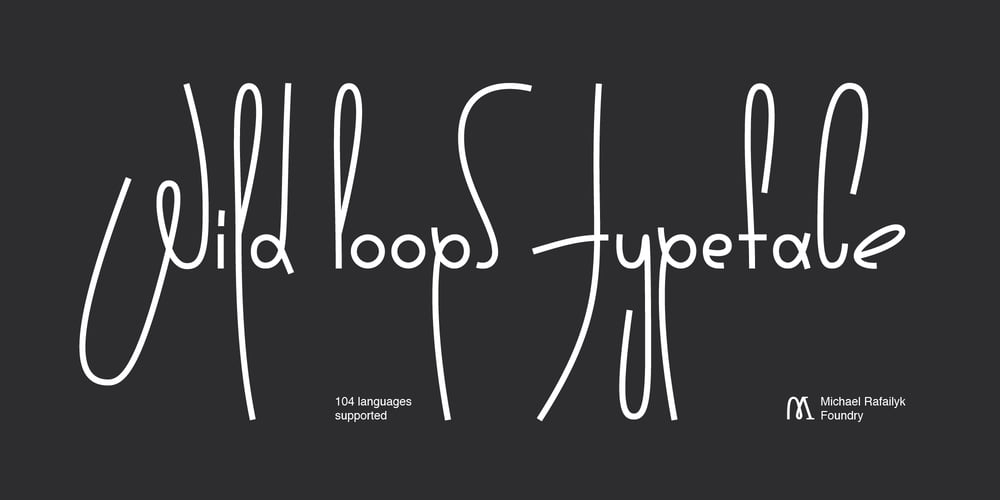
Wild Loops Font Family was designed by Michael Rafailyk and published by Michael Rafailyk. Wild Loops contains 2 styles and family package options. Wild Loops is a handwritten monolinear typeface for wild ideas. Inspired by the marker sketches and graffiti on the walls, the font perfectly complements Doodle illustrations. It speaks to a young audience and looks a bit crazy with stretched Ascenders and Descenders. At the same time, the font is elegant and will work well for invitations, greetings, clothing brands and jewelry. The main feature of the font is a smart Contextual Alternates that substitute different versions of letters depending on its position in the word (at the beginning, middle, and the end of a word), which makes the writing more natural.View PDF Specimen: https://michaelrafailyk.com/typeface/specimen/WildLoops.pdfContextual Alternates: ACDEFGHIJKMRSUWZabcdefghjlmnqrstvwxyzАДЕЁЗІЇКЛМНСШЩЯгдеёжзклмнстухцщьΑΕΖΗΙΚΛΜΞΥΆΈΉΪϲÀÁÂÃÄÅĄĂĀẢẠẮẰẲẴẶẤẦẨẪẬȦĎĐÐÈÉÊËĚĒĖẺẼẾỀỂỄƐĞǦĠÌÍÎÏĮĪĨỈỊİṂŘŔŠŚȘŽŹŻçğģǧġņṇřŕŗşṣýỳÿỷỹỵžźżЈјЅѕўӯ123456789.Stylistic Alternates: ABCDEFGHIJKLMNQRSUVWXZabcdefghjklmnqrstvwxyzАВДЕЁЗІЇКЛМНСТШЩЯгдеёжзклмнстухцщьΑΕΖΗΙΚΛΜΞΥΆΈΉΪκϲÀÁÂÃÄÅĄĂĀẢẠẮẰẲẴẶẤẦẨẪẬȦĎĐÐÈÉÊËĚĒĖẺẼẾỀỂỄƐĞǦĠÌÍÎÏĮĪĨỈỊİṂŘŔŠŚȘŽŹŻçğģǧġņṇřŕŗşṣýỳÿỷỹỵžźżЈјЅѕўӯ123456789&.Ligatures: jj ll.Superscript, Subscript, Fractions: ⁰¹²³⁴⁵⁶⁷⁸⁹ ₀₁₂₃₄₅₆₇₈₉ ½ ¼ ¾.Glyph count: 994.Languages count: 104.Languages: Afar, Afrikaans, Albanian, Asturian, Azerbaijani (Latin), Basque, Belarusian, Bislama, Bosnian, Breton, Bulgarian, Catalan, Chamorro, Chewa (Latin), Croatian (Latin), Cornish, Corsican, Czech, Danish, Dinka, Dutch, English, Erzya, Estonian, Faroese, Finnish, French, Frisian, Friulian, Fula, Gaelic (Scottish), Galician, German, Greek, Greenlandic, Guarani, Hausa (Latin), Hungarian, Icelandic, Igbo (Latin), Indonesian, Irish, Italian, Karelian, Kashubian, Kinyarwanda (Ruanda), Kirundi (Rundi), Kumyk, Kurdish (Latin), Ladin, Latvian, Lithuanian, Luxembourgian, Macedonian, Malagasy (Latin), Malay (Latin), Maltese, Maori, Marshallese, Moksha, Mongolian (Cyrillic), Northern Sotho, Norwegian, Occitan, Oromo (Afan, Galla), Papiamentu, Polish, Portuguese, Quechua, Rhaeto-Romance, Romani (Latin), Romanian, Russian, Rusyn, Sami, Samoan, Sardinian, Serbian, Shona, Slovak, Slovene, Somali, Sorbian, Spanish, Swahili (Kiswahili), Swedish, Tagalog, Tatar (Cyrillic, Latin), Tongan, Tsonga, Tswana, Turkish, Turkmen (Latin), Ukrainian, Ulithian, Uzbek (Latin, Cyrillic), Venda, Vietnamese, Walloon, Welsh, Wolof (Latin), Xhosa, Yapese, Yoruba (Latin), Zulu.The promo images used illustrations from the city walls of Groningen and Wrocław, photos of Cottonbro, Karolina Grabowska, Marlene Leppänen, Zhugewala from Pexels, and photos of Kevin Grieve, Liwei Zhang, Nathan Dumlao from Unsplash.